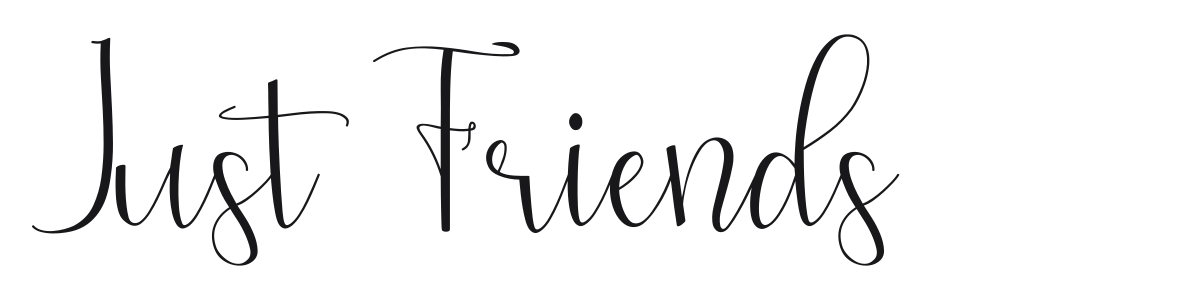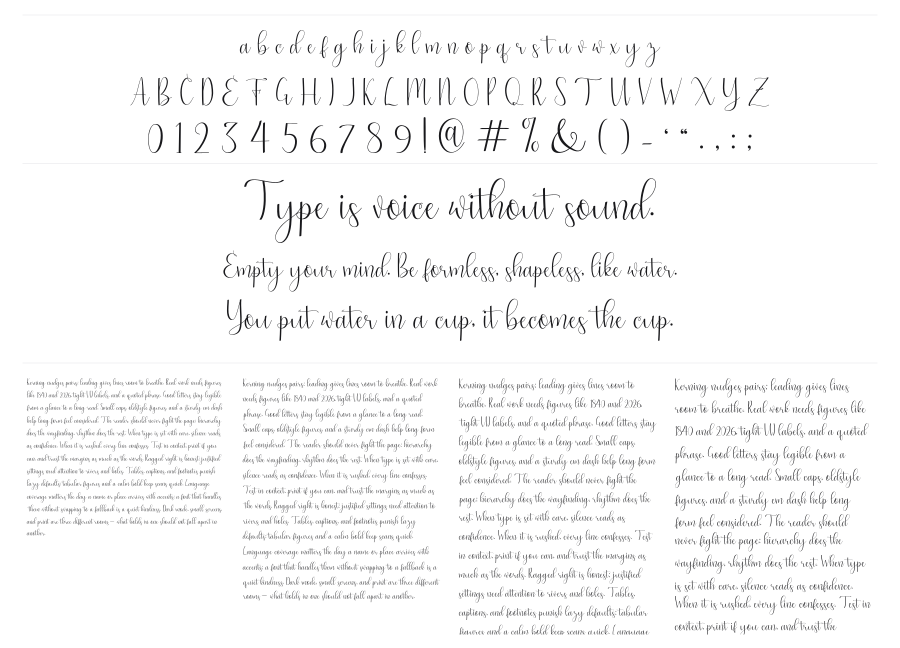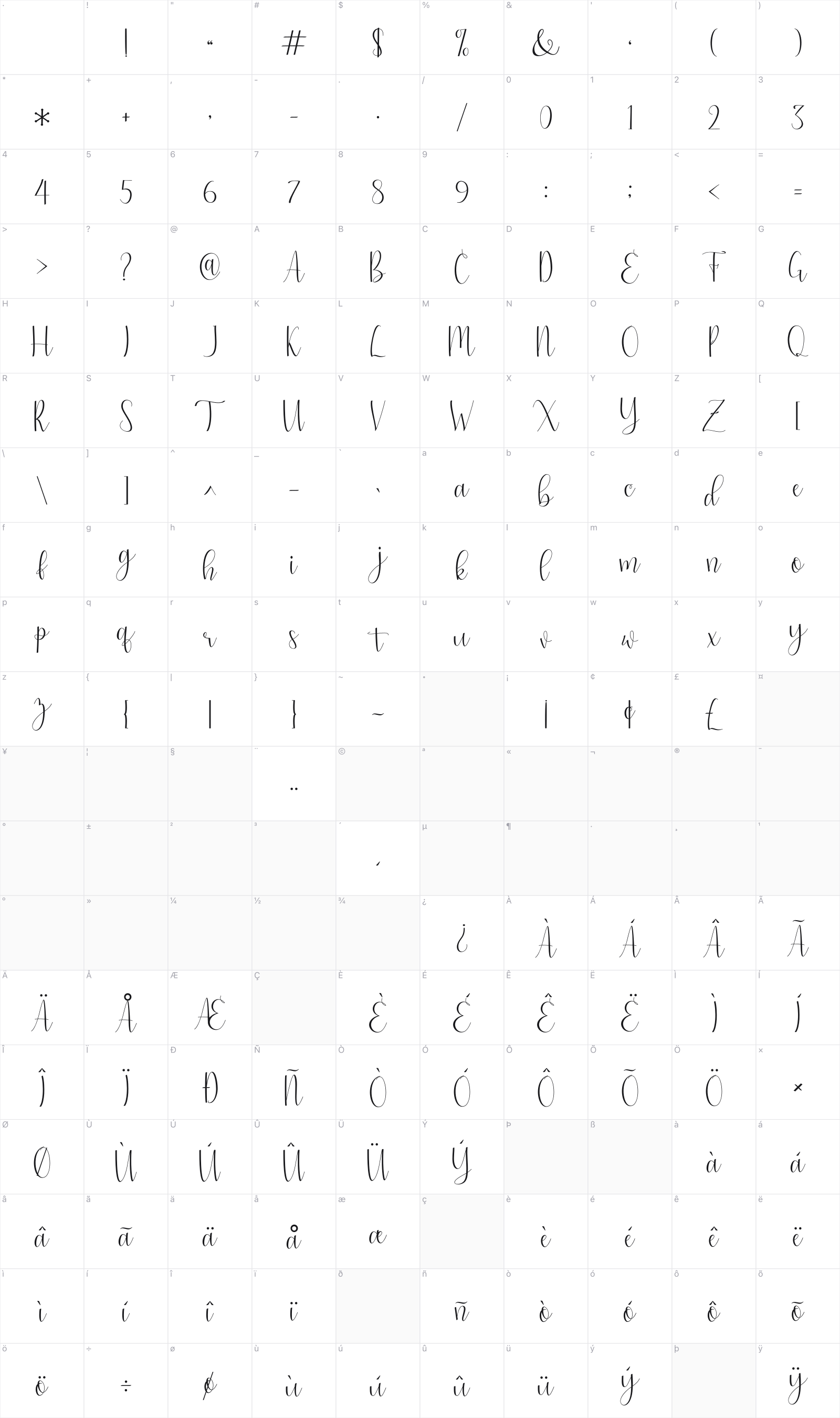
Just Friends
Just Friends is a buoyant casual script with bouncy baseline rhythm and fluid connected strokes that feel genuinely handwritten. Generous loops on the ascenders and descenders give it a romantic, celebratory energy without tipping into formality. It works naturally at large sizes for wedding stationery, social graphics, and lifestyle branding.